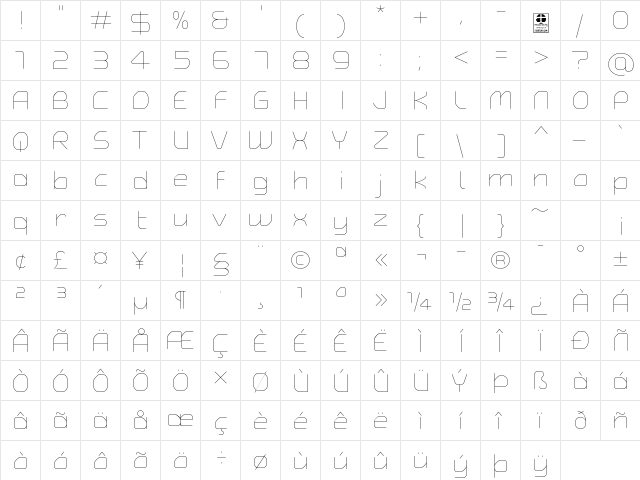
Typo Angular Rounded Thin Demo Regular
Design Context for Typo Angular Rounded Thin Demo Typeface
Typo Angular Rounded Thin Demo uses gentle rounded endings to create a warm, inviting typographic personality — less corporate than geometric sans, more refined than playful display fonts. The delicate stroke weight brings airiness and refinement to layouts.
Well-suited to UI design, mobile interfaces, and any brand that wants approachability without sacrificing clarity.
Font Pairing: Pairs well with a rounded or humanist sans for body copy, maintaining the friendly tone without relying on Typo Angular Rounded Thin Demo to carry extended reading.
Pro Tip: Use Typo Angular Rounded Thin Demo for UI elements, app interfaces, and anywhere a friendly, approachable tone needs to be maintained without sacrificing clarity.